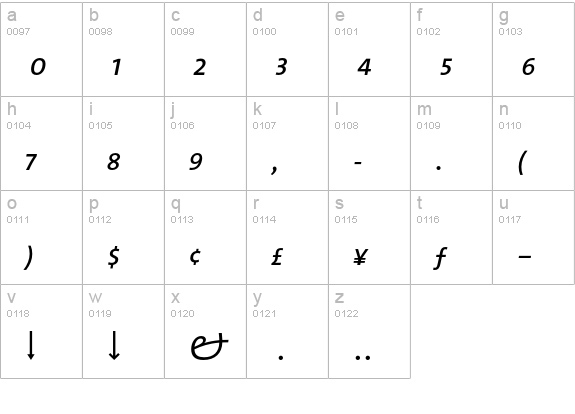
TheMix SemiLight- Expert Italic Font Details
TheMix SemiLight- Expert Italic is a distinctive, italic variant in the TheMix typeface family \xE2\x80\x94 well suited to design and typography projects.
TheMix SemiLight- Expert Italic font is a perfect blend of elegance and versatility. Its sleek and slender design adds a touch of sophistication to any project, making it an ideal choice for professional use. With its expertly crafted italic style, this font exudes a sense of creativity and finesse that is sure to captivate your audience. What makes TheMix SemiLight- Expert Italic font even more appealing is the fact that it is freely available to download at FontsMarket.com. This means that you can effortlessly enhance your designs without any additional cost. Whether you're working on a graphic design project, creating a logo, or designing a website, this font will effortlessly elevate your work to new heights. TheMix SemiLight- Expert Italic font offers a wide range of applications due to its unique combination of readability and artistic flair. Its clean and crisp lines ensure clear legibility, while its expertly crafted italic style adds a touch of elegance and sophistication. This font is perfect for editorial designs, branding materials, advertising campaigns, and much more. With TheMix SemiLight- Expert Italic font, you have the freedom to express your creativity and make a lasting impression. Its versatility allows it to adapt to various design styles and themes, making it a valuable asset for both experienced designers and beginners alike. Whether you're aiming for a modern and minimalist look or a more traditional and classic aesthetic, this font will effortlessly complement your vision. In conclusion, TheMix SemiLight- Expert Italic font is a must-have for any designer seeking a refined and stylish typeface. Its unique blend of elegance, versatility, and readability make it an excellent choice for a wide range of design projects. Plus, the fact that it is freely available to download at FontsMarket.com means you can easily access this font without any restrictions. Don't miss out on the opportunity to elevate your designs with TheMix SemiLight- Expert Italic font.